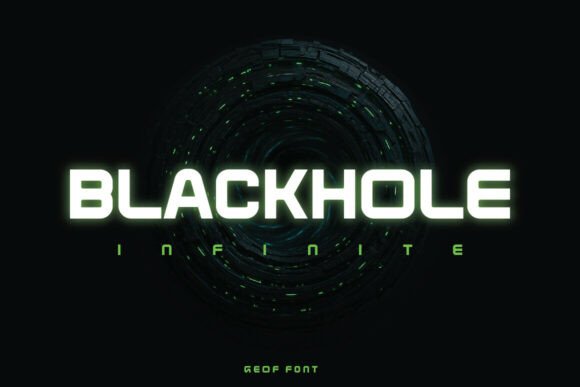
Introducing Geof Font: The Ultimate Futuristic Display Font for Modern Tech Branding
In the realm of digital design, a font can make all the difference in creating a lasting impression. For projects that demand a futuristic and tech-savvy aesthetic, Geof font emerges as a game-changer. This bold and geometric display font is meticulously crafted to cater to the needs of technology branding, esports, sci-fi posters, gaming graphics, and digital interfaces. Geof is not just a font; it’s a statement piece that can elevate your brand or project to new heights.
What Makes Geof Font Stand Out?
Geof’s uniqueness lies in its perfect blend of bold geometry and modern style. Each letterform is carefully designed to exude a sense of futurism, making it an ideal choice for projects that require a sleek and cutting-edge look. The font’s distinctive characters can instantly grab attention, making it perfect for logos, headlines, and creative projects that need a futuristic touch.
Whether you’re designing a logo for a tech startup, creating engaging content for an esports audience, or crafting visually stunning sci-fi posters, Geof font provides the versatility and impact you need. Its modern aesthetic ensures that your work stands out in a crowded digital landscape, leaving a memorable impression on your audience.
The Perfect Fit for Technology Branding
In the competitive world of technology branding, establishing a strong visual identity is crucial. Geof font offers a unique opportunity to create a bold and memorable brand image. Its futuristic design resonates with the innovative and forward-thinking nature of tech companies, making it an excellent choice for:
- Logos and wordmarks that require a distinctive and modern look
- Headlines and titles that need to make a strong impact
- Digital interfaces and apps that demand a sleek and futuristic feel
By incorporating Geof font into your technology branding, you can effectively communicate your brand’s commitment to innovation and cutting-edge technology.
Elevate Your Esports Content with Geof Font
The esports industry thrives on high-energy visuals and engaging content. Geof font is perfectly suited to meet the demands of this fast-paced and dynamic industry. Its bold and geometric design can add a professional and modern touch to:
- Esports logos and team branding
- Social media graphics and posts
- In-stream graphics and overlays
- Marketing materials and advertisements
By using Geof font in your esports content, you can create a visually stunning and cohesive brand image that resonates with your audience.
Sci-Fi Posters and Gaming Graphics: Bring Your Vision to Life
For designers and artists working on sci-fi posters and gaming graphics, Geof font offers a treasure trove of creative possibilities. Its futuristic design can help bring your vision to life, adding a touch of authenticity and realism to your work.
Whether you’re creating:
- Sci-fi movie posters
- Video game titles and credits
- Concept art and illustrations
- Digital art and graphics
Geof font can help you achieve a professional and polished look that captivates your audience.
Digital Interfaces: Enhance Your UI and UX with Geof Font
In the world of digital interfaces, user experience (UX) and user interface (UI) design are crucial for creating engaging and interactive experiences. Geof font can play a vital role in enhancing your UI and UX, providing a modern and futuristic feel to:
- Web and mobile app interfaces
- Digital dashboards and control panels
- Virtual reality (VR) and augmented reality (AR) experiences
- Smart home and IoT interfaces
By incorporating Geof font into your digital interfaces, you can create a cohesive and visually appealing design that resonates with your users.
Why Choose Geof Font?
With so many fonts available, why choose Geof font? Here are just a few reasons why Geof stands out:
- Unique and distinctive design: Geof font boasts a bold and geometric design that sets it apart from other fonts.
- Versatility: Geof font can be used in a wide range of applications, from technology branding to esports and gaming graphics.
- Modern and futuristic feel: Geof font is perfect for projects that require a sleek and cutting-edge look.
- Ease of use: Geof font is easy to read and works well in both digital and print formats.
In conclusion, Geof font is a powerful tool for designers and artists looking to create a lasting impression. Its unique blend of bold geometry and modern style makes it perfect for technology branding, esports, sci-fi posters, gaming graphics, and digital interfaces.
Whether you’re looking to create a strong brand image, elevate your esports content, or bring your sci-fi vision to life, Geof font is the ultimate choice. With its versatility, modern aesthetic, and ease of use, Geof font is sure to become a staple in your design toolkit.